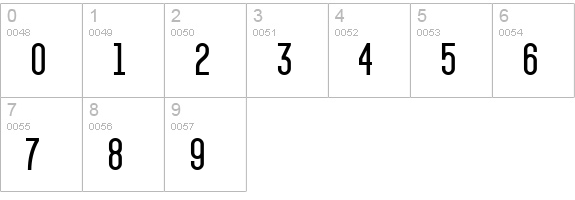
Pakt Black Font Details
Pakt Black is a maximum-weight, dramatic variant in the Pakt typeface family \xE2\x80\x94 well suited to maximum-impact headlines, posters, and packaging.
Pakt Black font is a stunning typeface that combines elegance and modernity. With its sleek and bold design, this font is perfect for creating eye-catching headlines, logos, and branding materials. Its unique letterforms are meticulously crafted to exude sophistication and professionalism. What sets Pakt Black font apart is its versatility. Whether you're designing for print or digital media, this font is sure to make a statement. Its clean lines and sharp edges make it highly legible, even at smaller sizes. The well-balanced proportions of each character ensure a harmonious composition, while the generous spacing allows for easy readability. But what makes Pakt Black font truly special is that it is freely available to download at FontsMarket.com. This means that you can effortlessly incorporate this stunning typeface into your design projects without any hassle or cost. Whether you're a professional designer or a hobbyist, this font is a valuable asset that will enhance your creative work. So why wait? Unlock the full potential of your designs with Pakt Black font. Download it for free at FontsMarket.com and start creating typography that captivates and inspires.